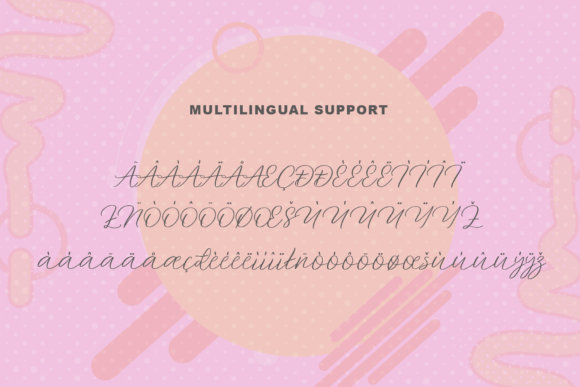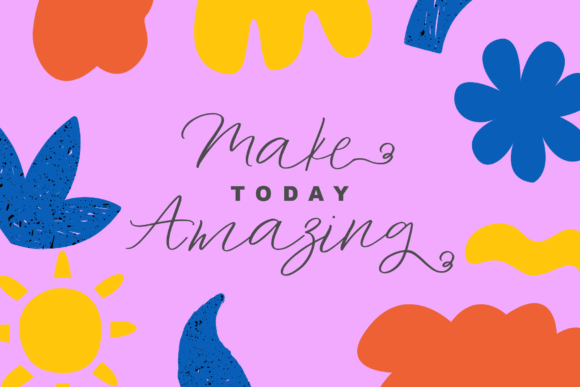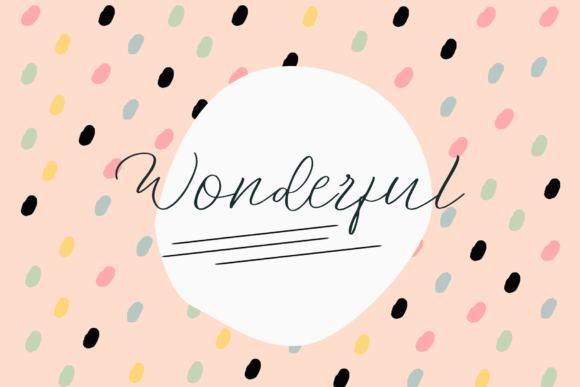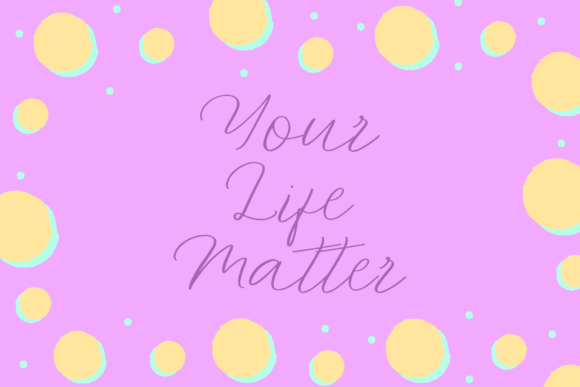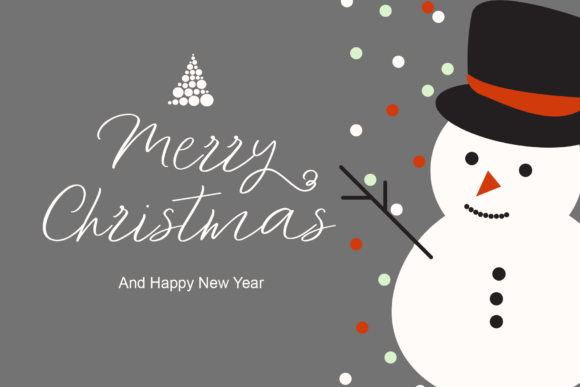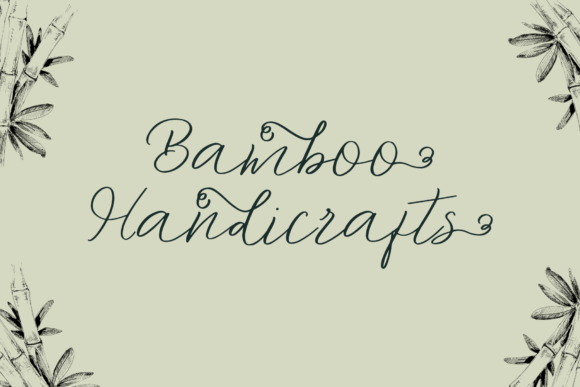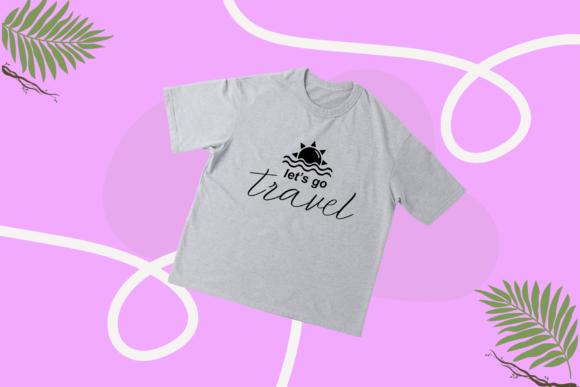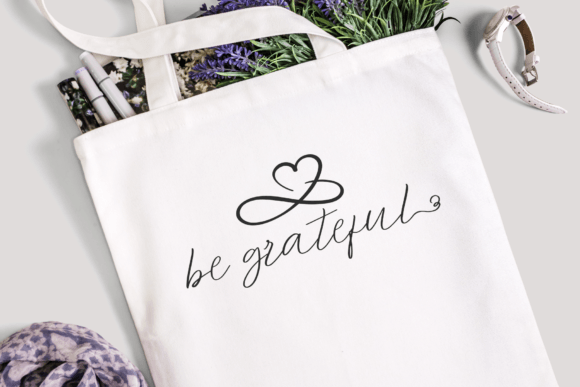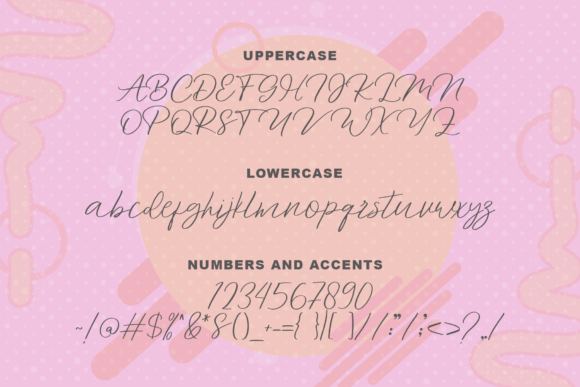
“Hand Modify” is a fun and whimsical handwritten script font that injects a sense of playfulness and charm into your designs. Regardless of the topic or context, this font serves as a valuable asset in your font library, as it has the potential to enhance any creative creation you undertake. It’s worth noting that “Hand Modify” is PUA encoded, allowing for easy access to all its glyphs and swashes, expanding your design possibilities.
The font’s playful and whimsical design adds a unique character and energy to your creative work. Its versatility makes it an excellent choice for a wide range of design projects, from branding and logos to invitations, posters, social media graphics, and more.
In the realm of design, fonts serve as crucial elements for conveying personality, setting the mood, and creating a memorable visual impression. “Hand Modify” excels in these aspects by offering a handwritten script style that is both fun and versatile. Its aesthetics infuse your designs with a sense of authenticity and creativity, making them engaging and memorable.
In summary, “Hand Modify” is more than just a font; it’s a fun and whimsical design tool for infusing character and energy into your creations. Its playful handwritten script style is ideal for designers seeking to add a unique and lively flair to their work. Whether you’re an experienced designer or just starting your creative journey, “Hand Modify” is the font that can help you create designs that are both delightful and memorable.